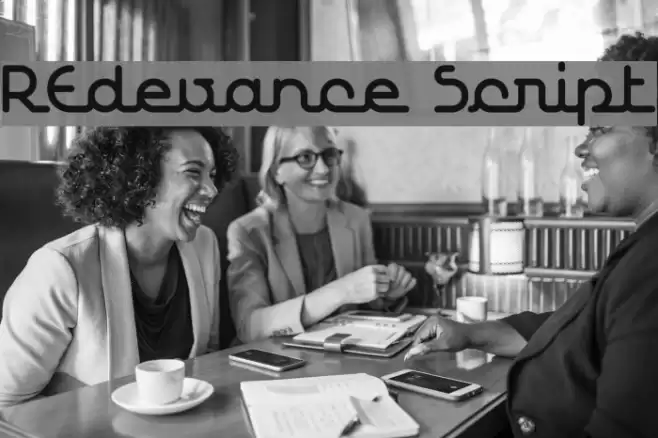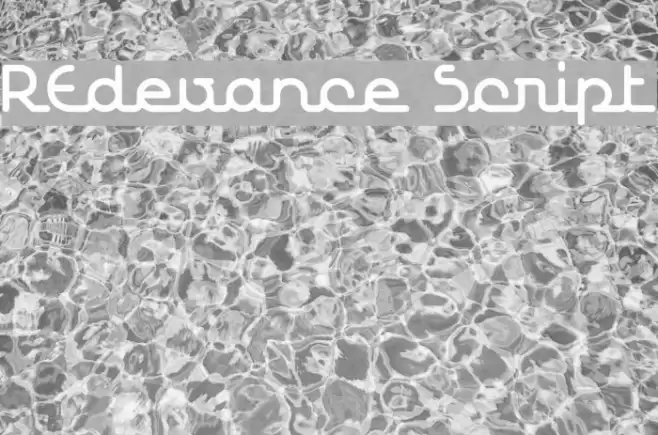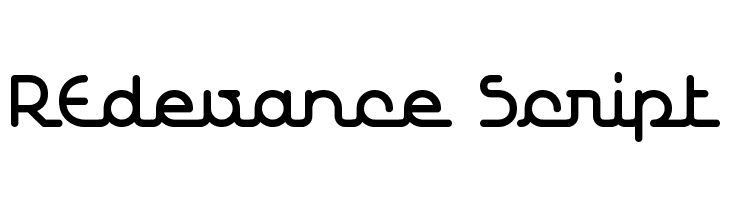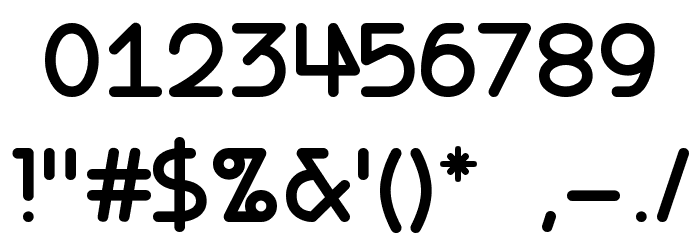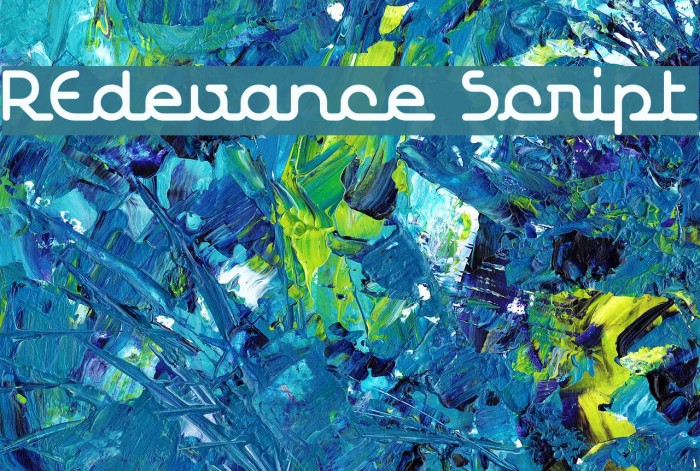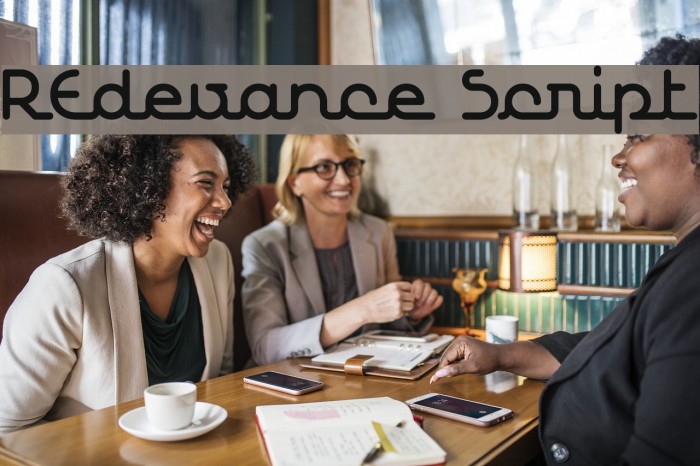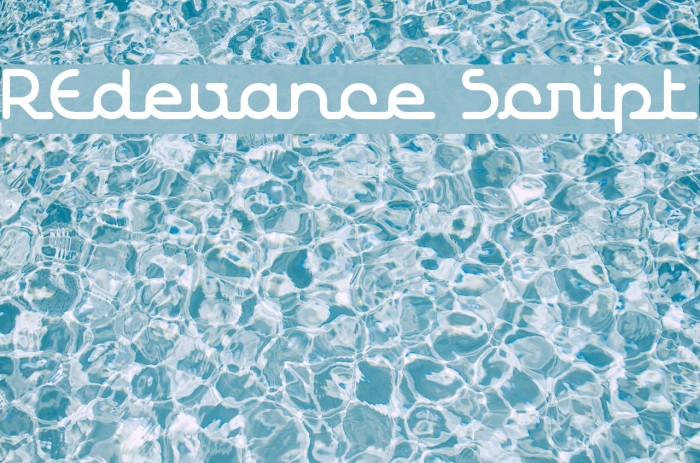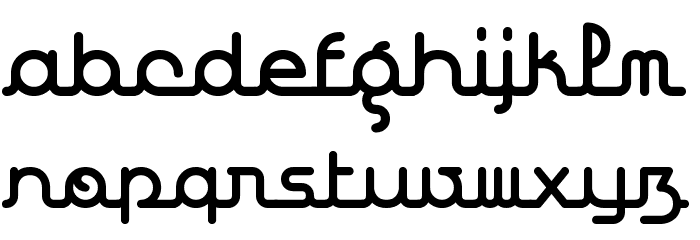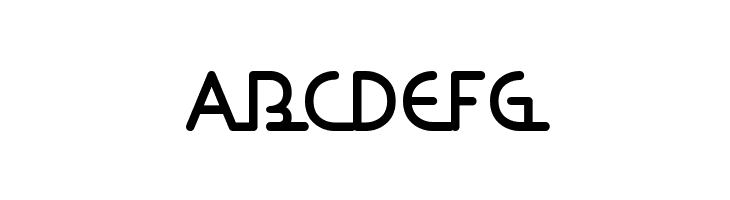
REdevance Script Font
REdevance Script Description
This font features a unique and playful design with a modern twist. The characters are interconnected with a continuous line, creating a sense of flow and movement. The uppercase letters are bold and structured, while the lowercase letters maintain a consistent style with rounded edges and smooth curves. Numbers and special characters follow the same design principles, ensuring uniformity across all glyphs. The font's distinct style makes it ideal for creative projects that require a touch of whimsy and innovation.
A playful, interconnected font with a modern and flowing design from Uncategorized fonts.
- Proposed Projects: Ideal for branding, creative posters, children's books, and playful packaging designs.